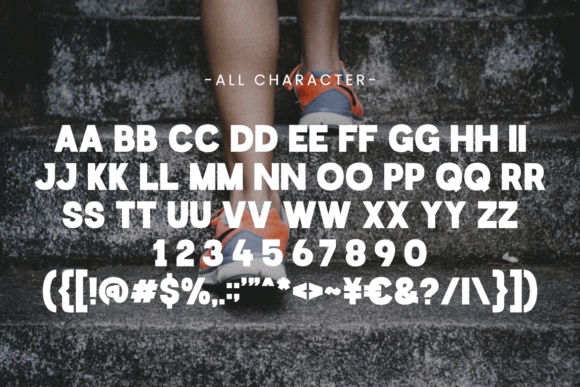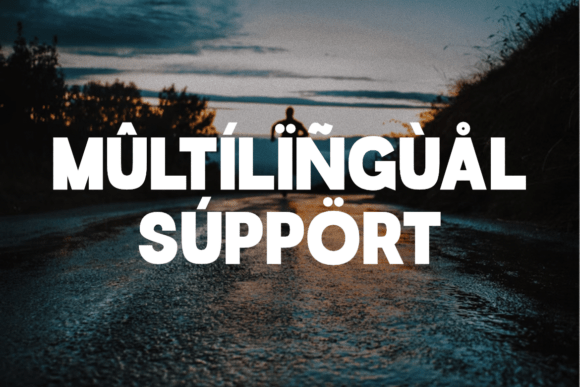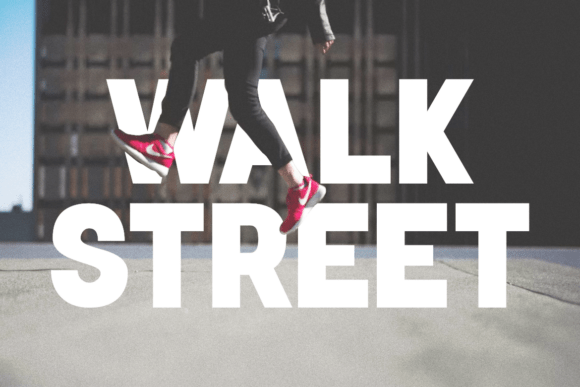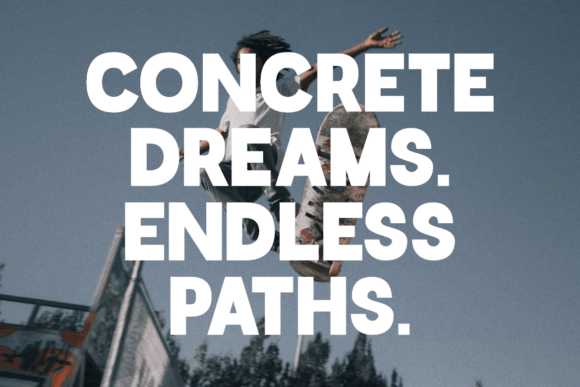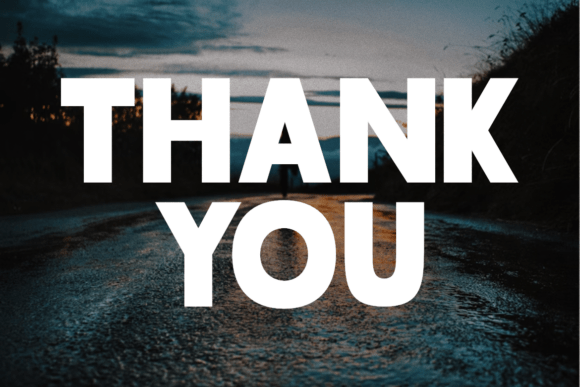
Introducing Active Font: The Modern Sans-Serif for Strong Visual Impact
In the world of typography, fonts play a crucial role in shaping the visual identity of a brand, product, or creative project. With the ever-growing demand for high-quality design, the need for a font that delivers clarity, style, and professional aesthetics has become more pressing than ever. This is where Active Font comes into play – a modern sans-serif font designed to make a statement.
What is Active Font?
Active Font is a carefully crafted, modern sans-serif typeface that is engineered to deliver strong visual impact. Its clean shapes, precise lines, and elegant curves make it an ideal choice for a wide range of design applications, from branding and packaging to editorial layouts and social media graphics.
Key Features of Active Font
- Clean and Modern Design: Active Font boasts a sleek and contemporary design that is perfect for designers and crafters looking to create fresh and engaging visuals.
- High Readability: The font’s clear and precise lines ensure excellent readability, making it suitable for body text, headlines, and titles.
- Versatile: Active Font is an incredibly versatile typeface that can be used for a wide range of design projects, from logos and posters to editorial layouts and social media graphics.
- Pairs Well with Minimalist or Bold Design Directions: Whether you’re working with a minimalist or bold design approach, Active Font pairs perfectly with both styles, allowing you to create stunning visuals with ease.
Use Cases for Active Font
Active Font is an incredibly versatile typeface that can be used for a wide range of design applications. Here are some of the most popular use cases:
- Branding: Create a strong visual identity for your brand with Active Font. Its modern design and clean shapes make it perfect for logos, business cards, and letterheads.
- Packaging: Make your product stand out on store shelves with Active Font. Its bold and eye-catching design is sure to grab attention.
- Editorial Layouts: Use Active Font to create stunning editorial layouts for magazines, newspapers, and blogs. Its high readability and clean design make it perfect for body text and headlines.
- Social Media Graphics: Create engaging social media graphics with Active Font. Its modern design and versatility make it perfect for Facebook posts, Instagram stories, and Twitter headers.
- Logos and Posters: Active Font is ideal for creating eye-catching logos and posters. Its bold and clean design makes it perfect for headlines and titles.
Why Choose Active Font?
With so many fonts available, why choose Active Font? Here are just a few reasons:
- Unique and Modern Design: Active Font offers a unique and modern design that will set your brand or project apart from the competition.
- High-Quality Typography: Active Font is crafted with precision and attention to detail, ensuring high-quality typography that will elevate your design.
- Easy to Read and Understand: Active Font’s clean design and precise lines make it easy to read and understand, even at small font sizes.
- Versatile and Adaptable: Active Font is an incredibly versatile typeface that can be used for a wide range of design applications.
In conclusion, Active Font is a modern sans-serif font that delivers strong visual impact, clarity, style, and professional aesthetics. Its clean design, precise lines, and elegant curves make it an ideal choice for designers and crafters looking to create stunning visuals. With its versatility, high readability, and unique design, Active Font is the perfect choice for branding, packaging, editorial layouts, social media graphics, logos, posters, and more.